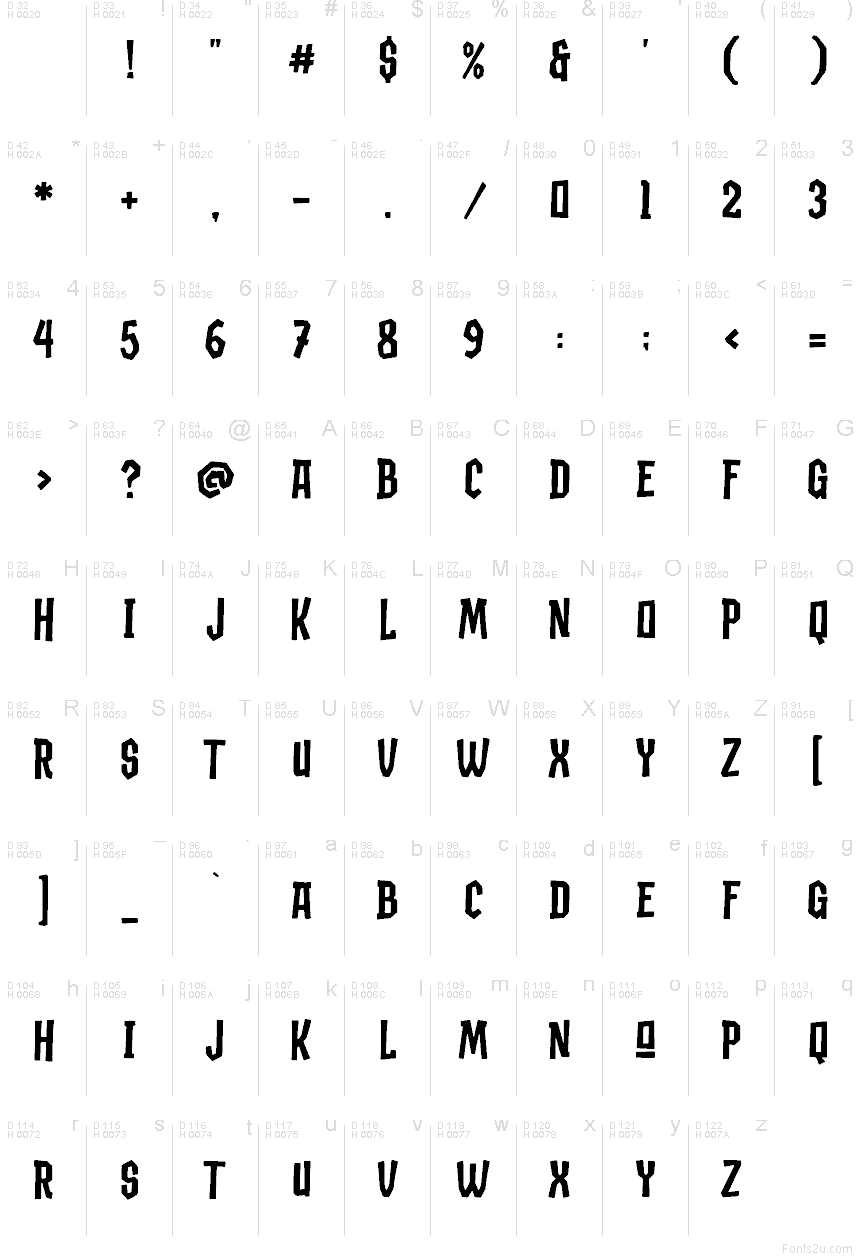
Riot Block font by Blankids is a free cartoon display typeface that feels like it’s been hacked out of cardboard with a box cutter and slapped onto a wall. The letters are tall, jagged, and slightly wobbly, with ink-heavy shapes that look raw and loud, as if they’re vibrating off the page. It’s bold, chunky, and unapologetically messy, giving headlines a wild, DIY energy that’s hard to ignore.
Using Riot Block, your designs instantly pick up a punky, street-art vibe that shines on gig posters, band merch, zines, YouTube thumbnails, skate stickers, and edgy event flyers. This free font thrives at big sizes where its rough, irregular contours can really shout. For supporting text, pair it with a simple, clean sans serif to keep things readable while Riot Block delivers the attitude.